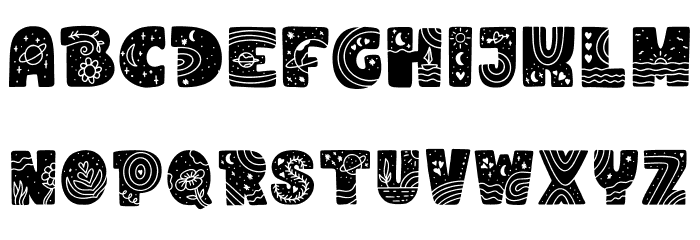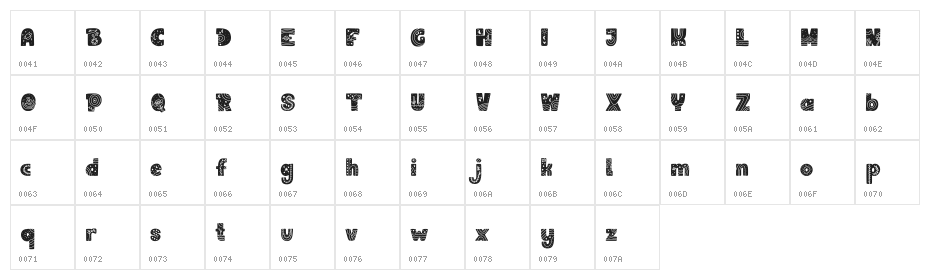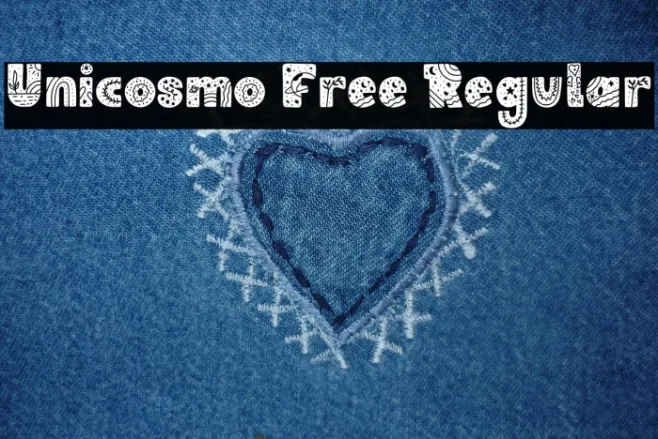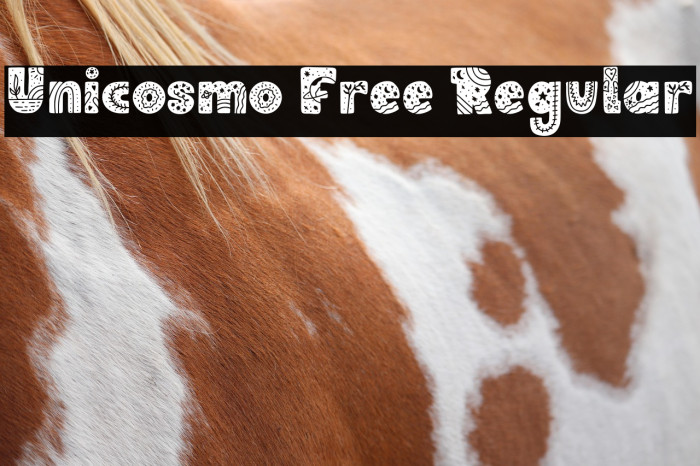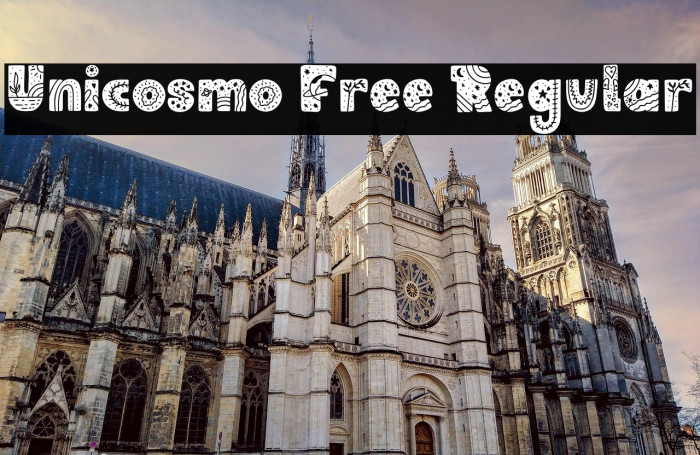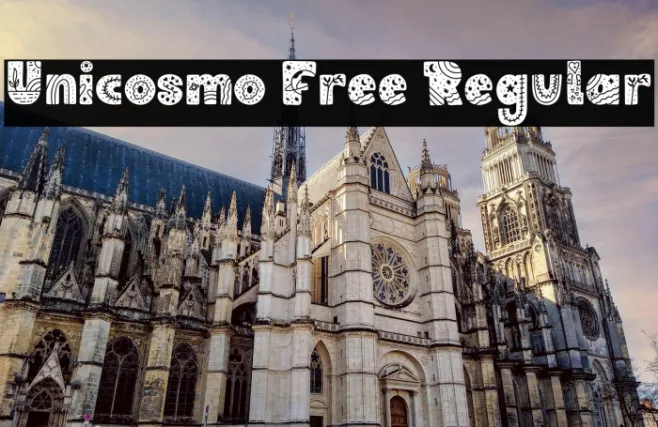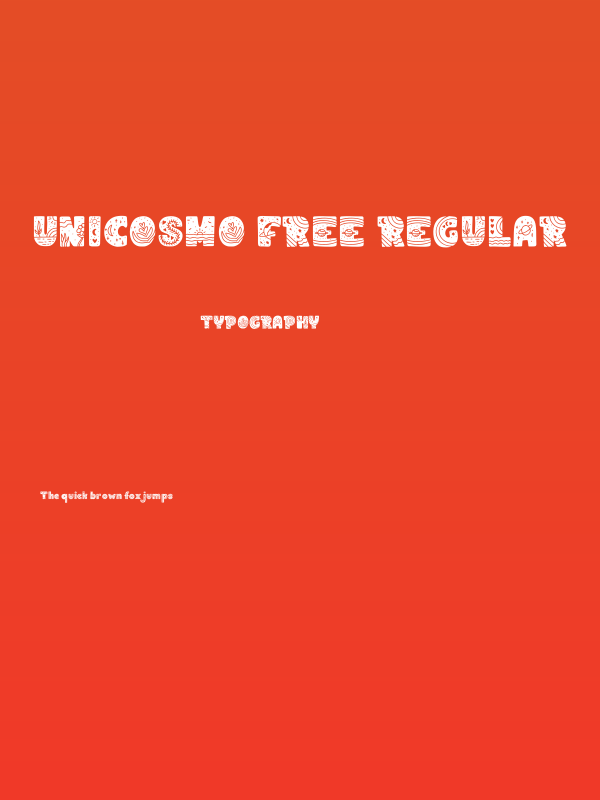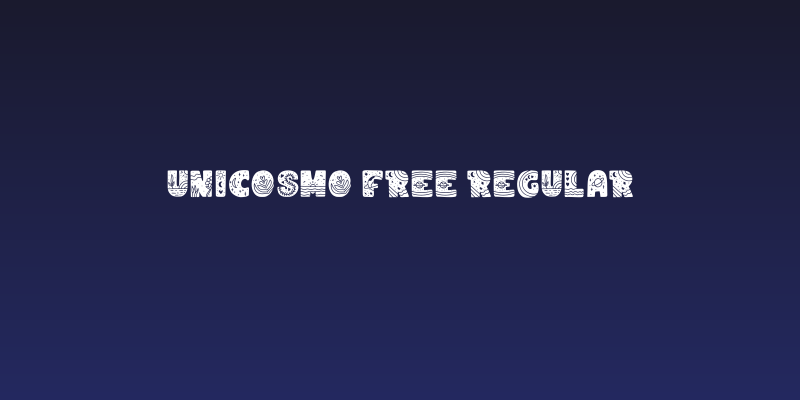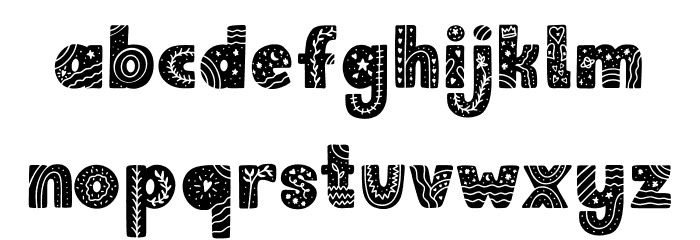
Unicosmo Free Regular Font
Unicosmo Free Regular Description
This font features a playful and decorative style, characterized by bold, blocky letters filled with intricate patterns and whimsical designs. Each character is uniquely adorned with elements such as stars, waves, and abstract shapes, creating a lively and eye-catching appearance. The font maintains a consistent weight throughout, with a strong presence that makes it ideal for creative and artistic projects. Its unique design elements make it stand out, offering a sense of fun and creativity.
| Proposed Projects | Ideal for children's books, creative posters, playful branding, and artistic projects. |